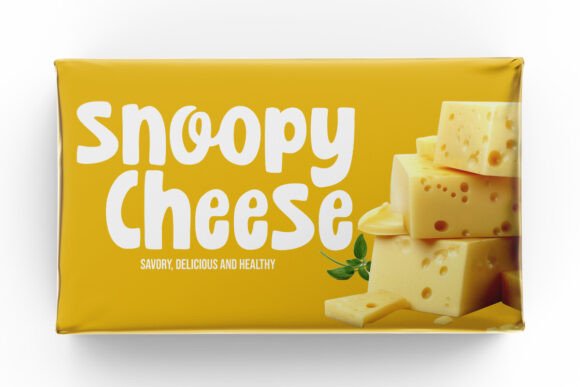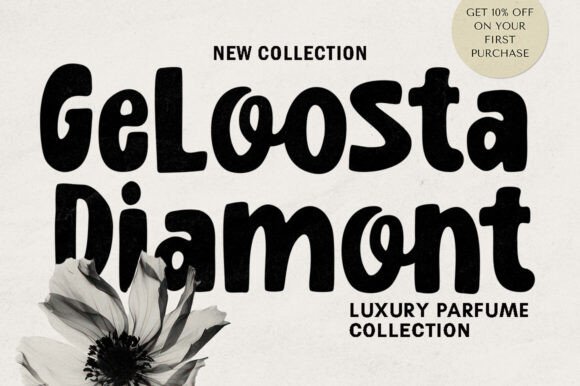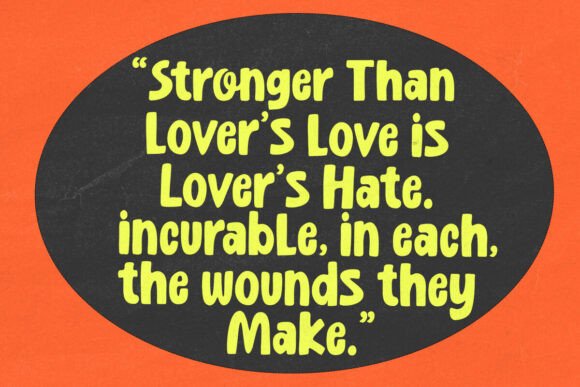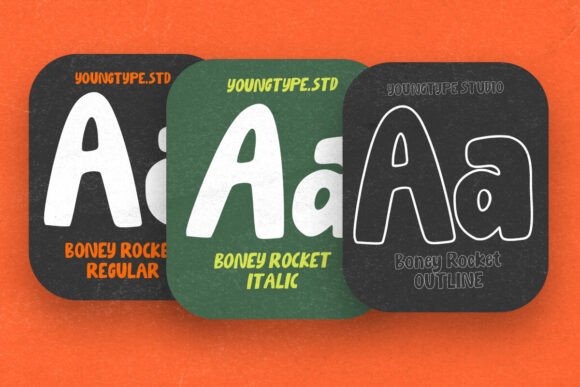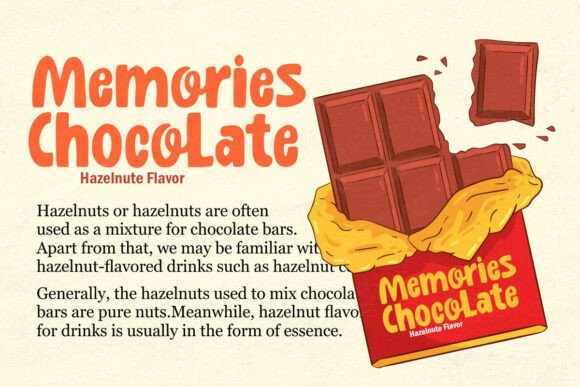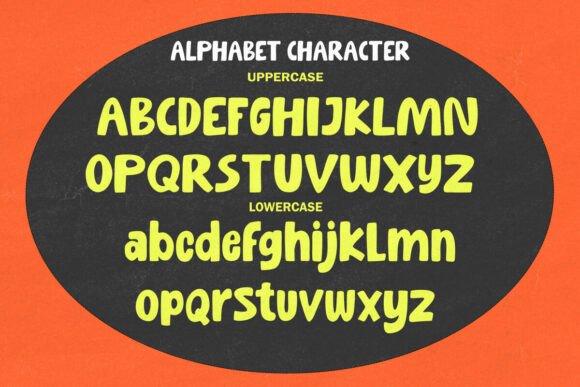
Boney Rocket Font: Elevate Your Designs with a Playful and Retro Twist
Are you tired of using the same old fonts in your creative projects? Do you want to add a dash of fun and personality to your designs? Look no further than the Boney Rocket Font, a bold, playful, and handcrafted display font that’s sure to take your work to the next level. With its thick strokes, rounded edges, and quirky letterforms, this font exudes a retro charm while maintaining a contemporary, approachable feel.
The Perfect Blend of Retro and Modern
Boney Rocket Font is a masterful blend of vintage and modern design elements. Its bold, thick strokes evoke the nostalgia of classic posters and advertisements from the mid-20th century, while its rounded edges and playful letterforms bring a fresh, modern twist. This font is perfect for designers and crafters who want to add a touch of whimsy and personality to their work, whether it’s a logo, a poster, a social media graphic, or a craft project.
Key Features of Boney Rocket Font
- Bold and Playful: Boney Rocket Font is a display font designed to make a statement. Its thick strokes and bold letterforms make it perfect for headlines, titles, and other attention-grabbing elements.
- Handcrafted with Love: This font is meticulously crafted by hand, giving it a unique and personal touch that’s hard to find in digital fonts.
- Retro Charm: Boney Rocket Font has a distinct retro vibe that’s reminiscent of classic posters, advertisements, and logos from the mid-20th century.
- Contemporary Feel: Despite its retro roots, Boney Rocket Font has a modern, approachable feel that’s perfect for contemporary designs.
- Quirky Letterforms: The font features quirky, playful letterforms that add a touch of whimsy and personality to any design.
Uses for Boney Rocket Font
Boney Rocket Font is a versatile font that can be used in a wide range of creative projects, including:
- Logos and Branding: Use Boney Rocket Font to create a bold, eye-catching logo that sets your brand apart.
- Posters and Flyers: This font is perfect for creating attention-grabbing posters and flyers that demand attention.
- Social Media Graphics: Add a touch of personality to your social media graphics with Boney Rocket Font.
- Craft Projects: This font is also great for craft projects, such as making signs, banners, and other DIY decorations.
Why Choose Boney Rocket Font?
With so many fonts to choose from, why should you choose Boney Rocket Font? Here are just a few reasons:
- Unique and Personal: Boney Rocket Font has a unique, handcrafted feel that’s hard to find in digital fonts.
- Versatile: This font can be used in a wide range of creative projects, from logos and branding to posters and social media graphics.
- Easy to Read: Despite its bold, playful design, Boney Rocket Font is easy to read, even at smaller sizes.
- High-Quality: This font is designed to high-quality standards, ensuring that it looks great in any design.